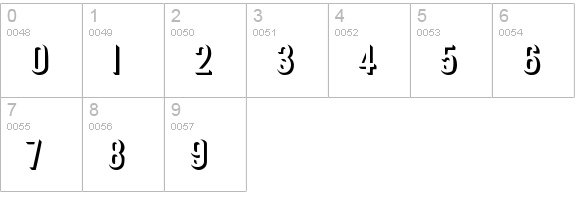
RoundedRelief Font Details
RoundedRelief font is a charming and versatile typeface that exudes a sense of friendliness and approachability. Its rounded edges and smooth curves give it a soft and welcoming appearance, making it an ideal choice for a variety of design projects. Whether used for headlines, body text, or branding, RoundedRelief font adds a touch of whimsy and sophistication to any layout. Best of all, RoundedRelief font is available for free download at FontsMarket.com. This means you can easily access this delightful typeface and incorporate it into your designs without any cost. Don't miss out on the opportunity to enhance your projects with the playful elegance of RoundedRelief font - download it today and let your creativity shine!